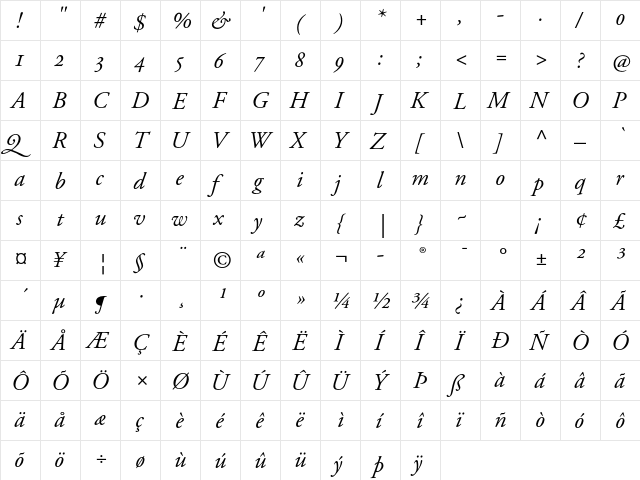
Hipermestra Italic
Design Context for Hipermestra Typeface
Hipermestra offers clean, dependable letterforms without strong stylistic allegiance, making it a practical choice for designers who need flexibility. Its italic angle brings a sense of urgency and motion to the letterforms.
Pro Tip: Use Hipermestra for emphasis, pull quotes, and subheadings where its slanted energy can add rhythm to the layout.